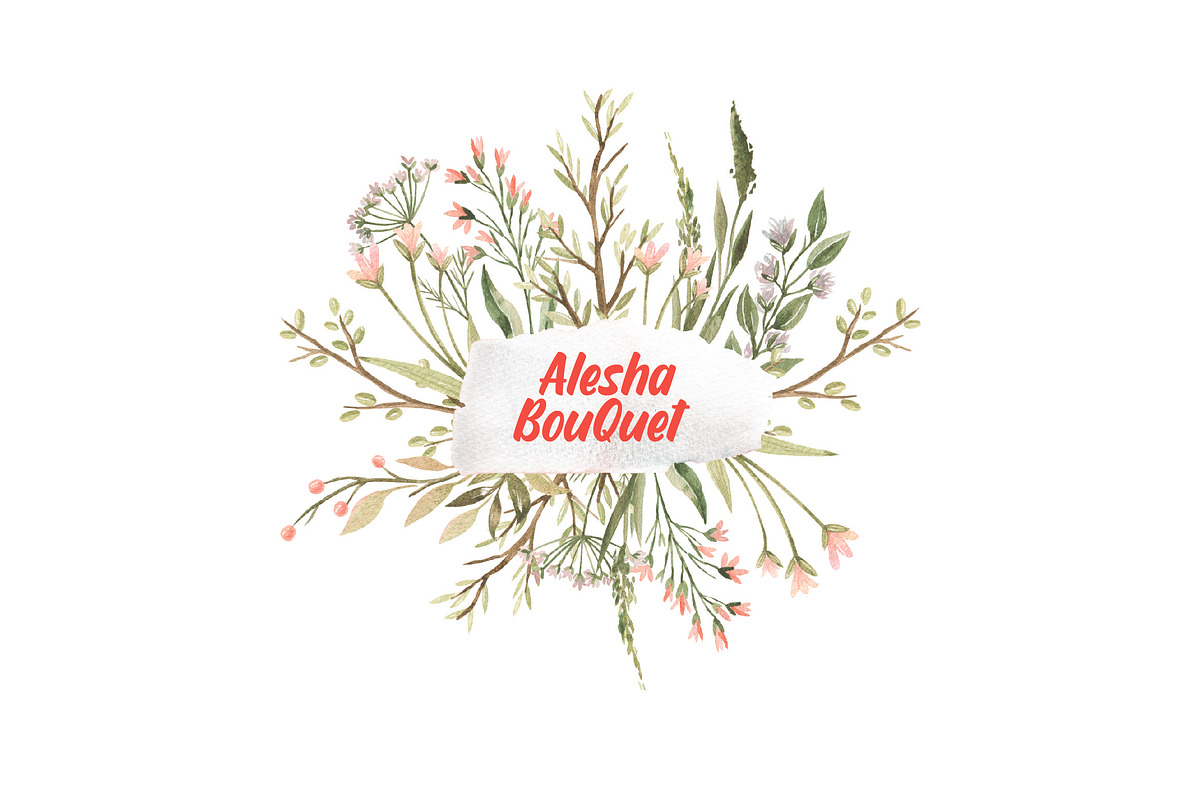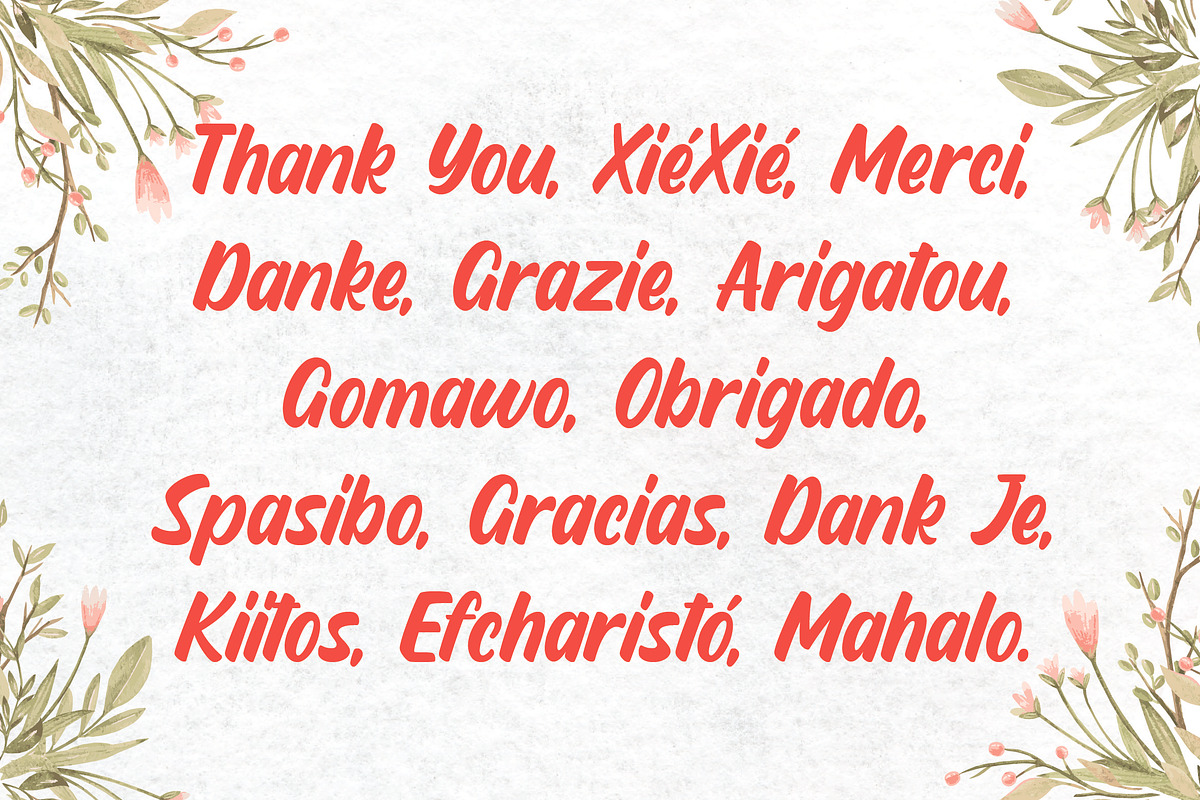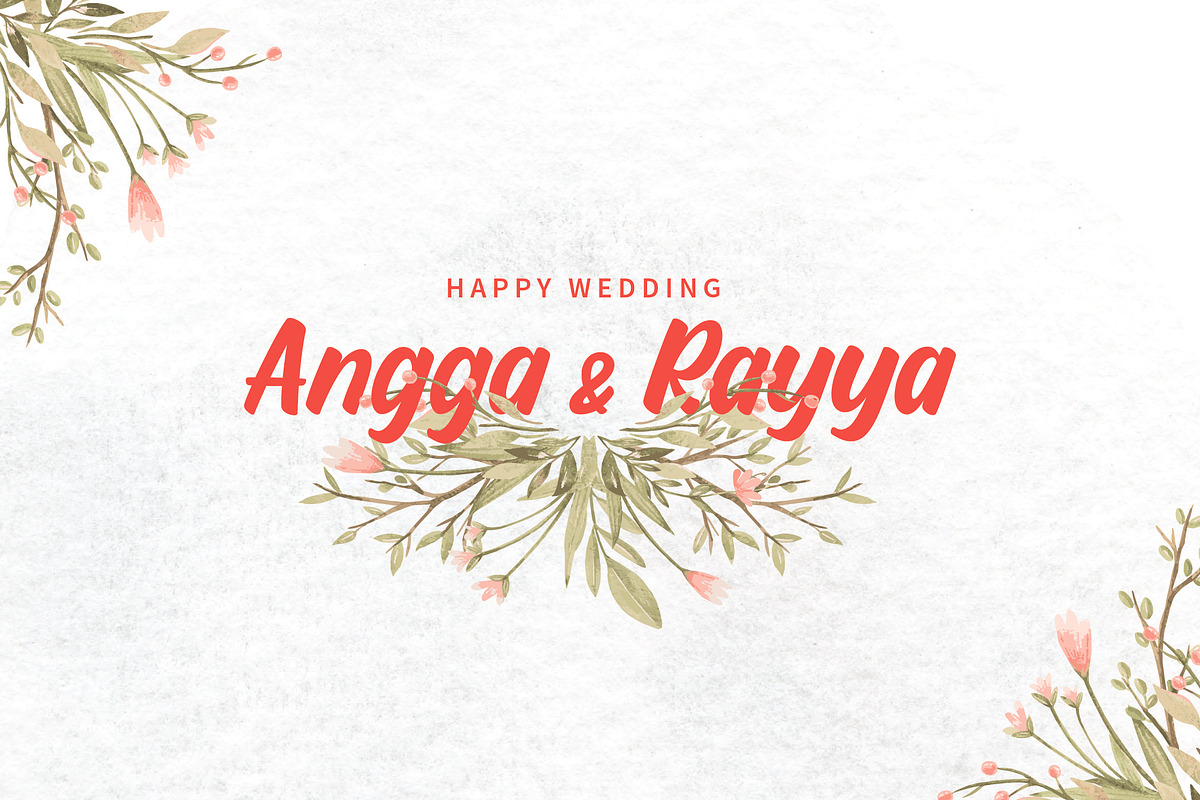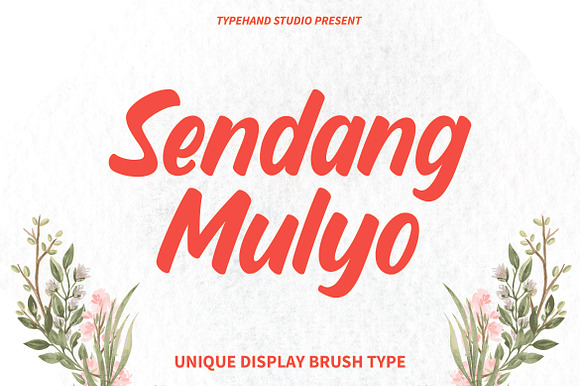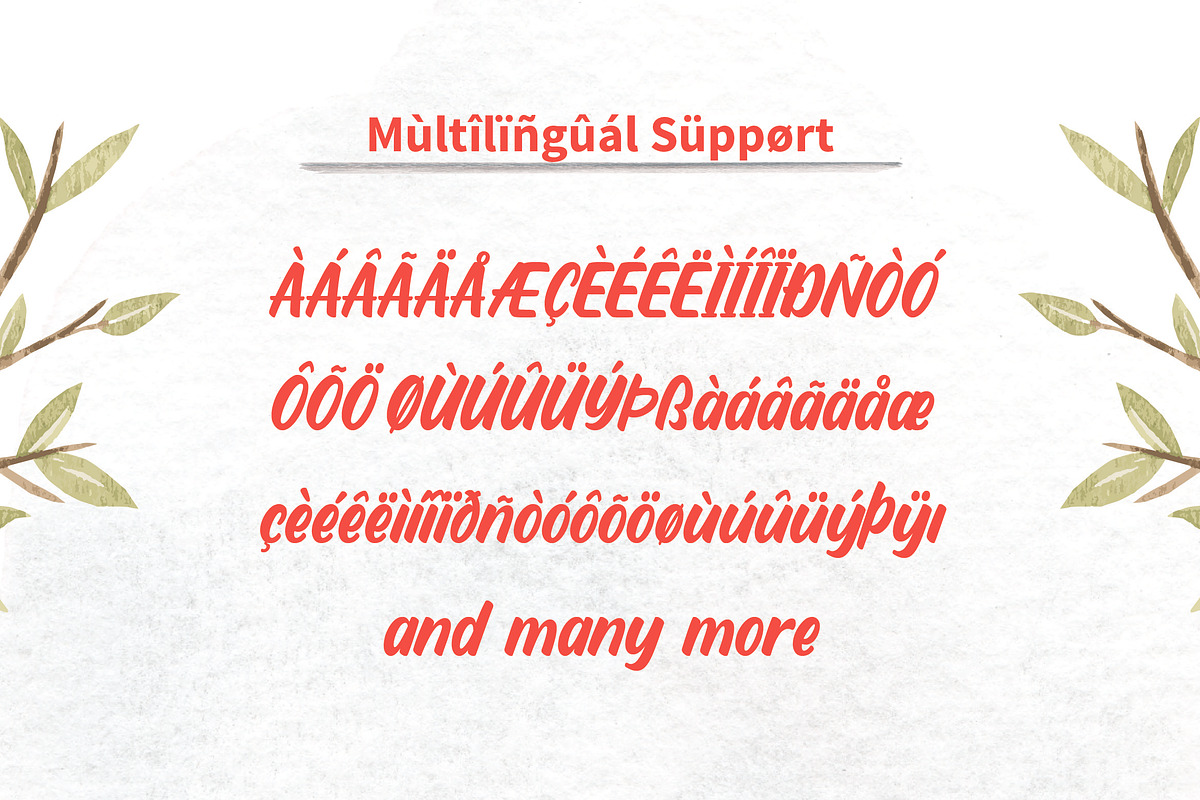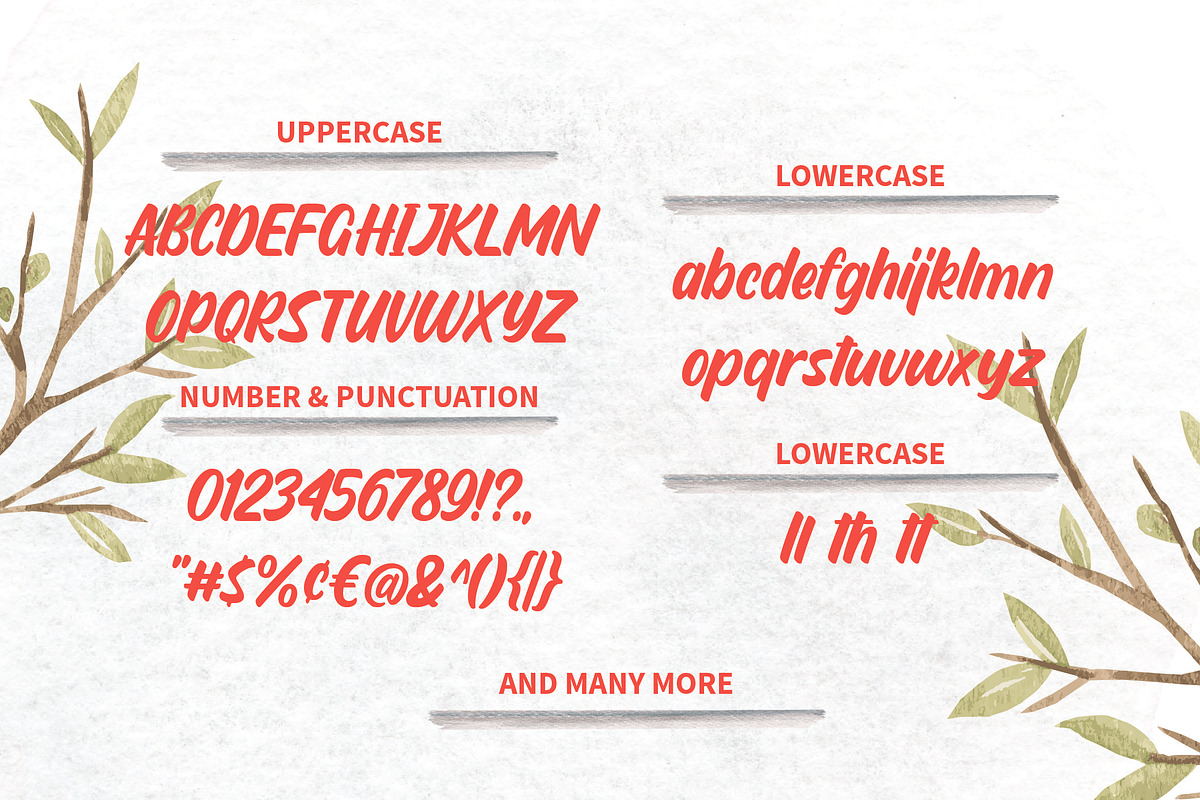
Sendang Mulyo $2 Font Display
Include Ligature, Multilanguage, Alternate
Sendang Mulyo $2 Font Display by Typehand Studio fits naturally into Branding, posters, packaging, typography.